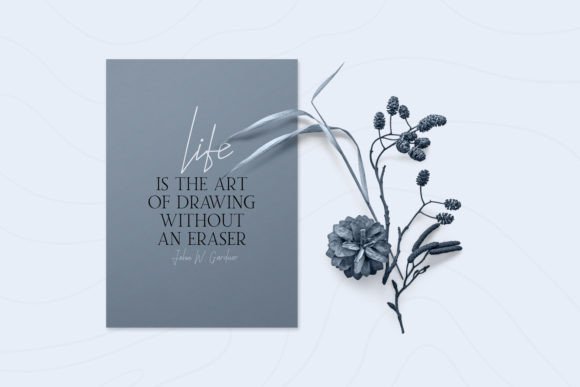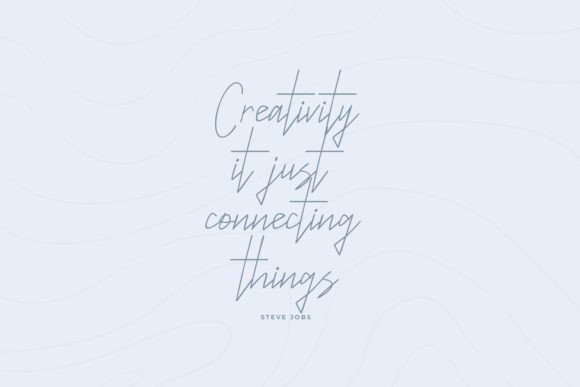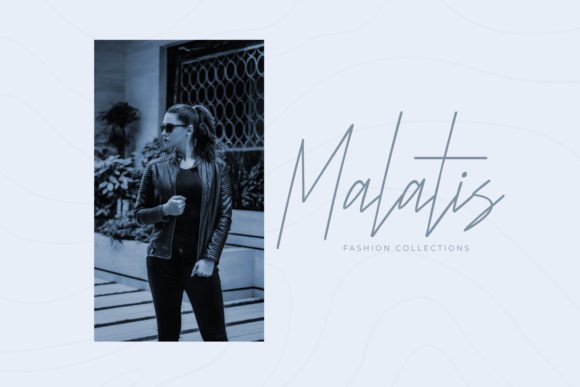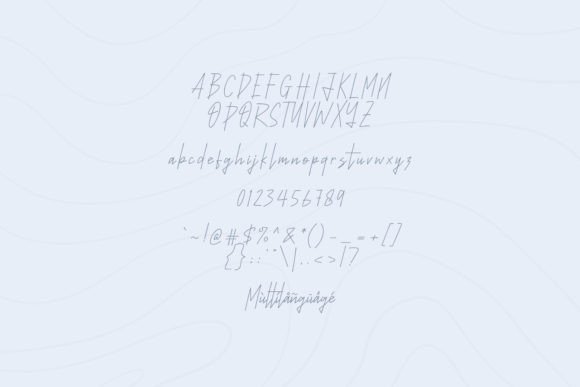
Introduction to Maletta Font
Do you remember the moment when you finally find the perfect design element that makes your creative project shine? For designers, this feeling is priceless. It’s like stumbling upon a hidden treasure that elevates your work from good to exceptional. And, if you’re a fan of elegant scripts, you’re in luck! The Maletta Font is here to take your designs to the next level.
As a modern and stylish script font, Maletta Font is perfect for posters, logos, magazines, book covers, banners, and many more. Its clean and elegant design makes it an ideal addition to any creative project. Whether you’re working on a free download or a high-quality commercial design, Maletta Font is sure to impress. With its versatility and high-quality design, it’s no wonder that designers are falling in love with this amazing font.
Key Features of Maletta Font
- Includes 6 styles and 240 glyphs for versatility in design
- Supports various languages, making it a great resource for multilingual projects
Honest Review: Maletta Font
As a designer, I’m always on the lookout for high-quality design resources to elevate my creative projects. Recently, I had the chance to work with the Maletta Font, and I must say, it’s a great addition to my toolkit.
Here are some things that work well with the Maletta Font:
- ✨ Wide range of languages supported, making it a versatile font for international projects.
- ✨ High-quality vector graphics that scale perfectly for various applications.
- ✨ Transparent background option, allowing for seamless integration with any design element.
However, I did encounter a few limitations with the Maletta Font:
- ⚠️ Limited customization options, which may not be ideal for designers who like to experiment with font styles.
- ⚠️ May not be suitable for very small text sizes, as it can become difficult to read.
Overall, I’m impressed with the Maletta Font’s performance in my design project. While it may not be perfect, its high quality and versatility make it a valuable design resource. If you’re looking for a reliable font for your creative project, I’d definitely recommend giving the Maletta Font a try.
Tips for Getting the Most Out of Maletta Font
Use Maletta Font for creative projects that require a high-quality, unique font. It’s perfect for designing logos, posters, and other design elements. To get the most out of it, experiment with different font sizes and styles to find the perfect look for your project.
Maletta Font is commonly used in design projects that require a modern and elegant look. It’s perfect for designing business cards, brochures, and other marketing materials. You can also use it for personal projects, such as designing a wedding invitation or a birthday card.